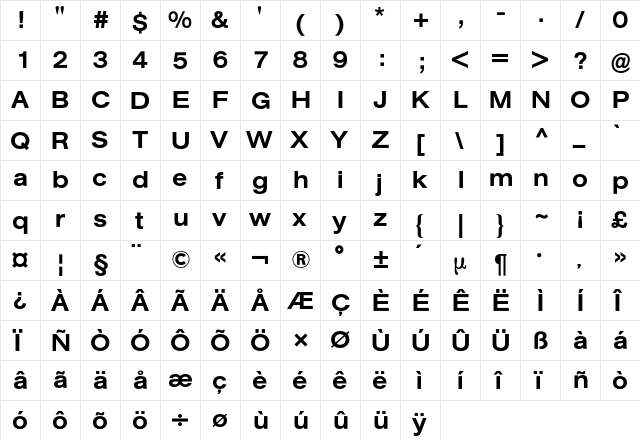
AG Buch Extended BQ Regular
Design Context for AG Buch Extended BQ Typeface
AG Buch Extended BQ offers clean, dependable letterforms without strong stylistic allegiance, making it a practical choice for designers who need flexibility.